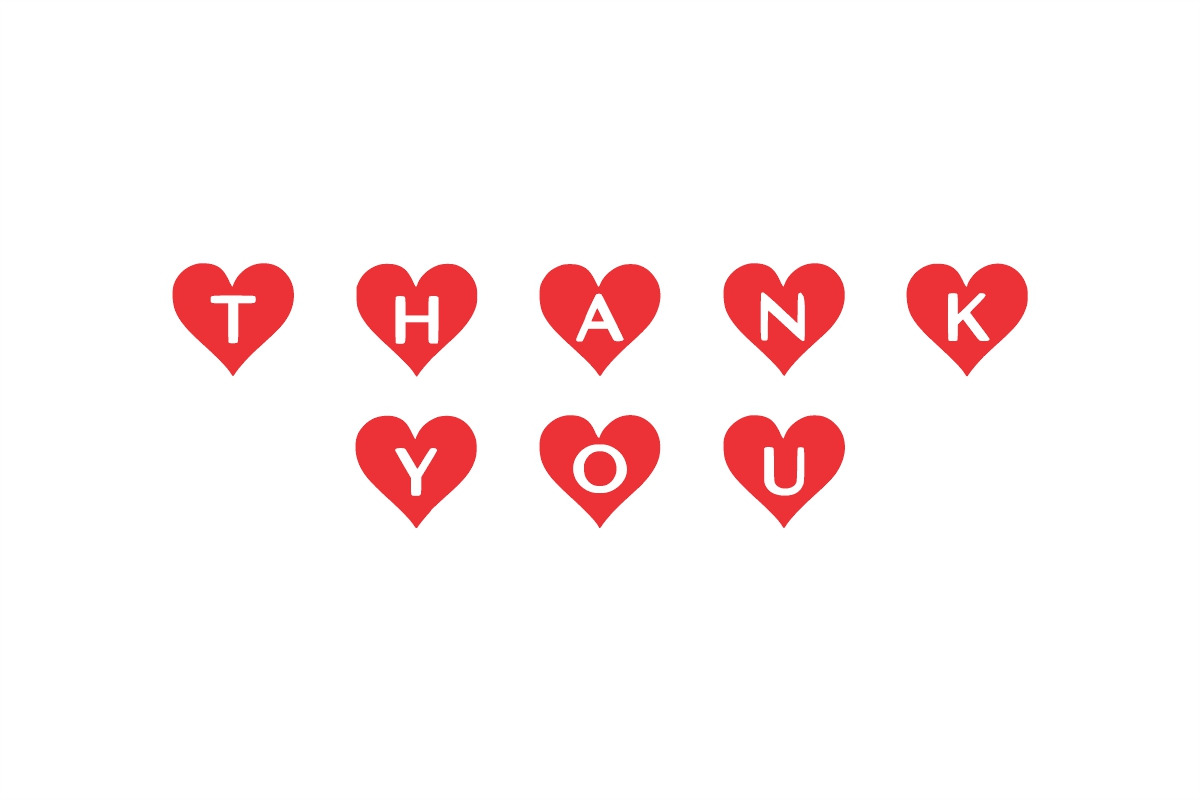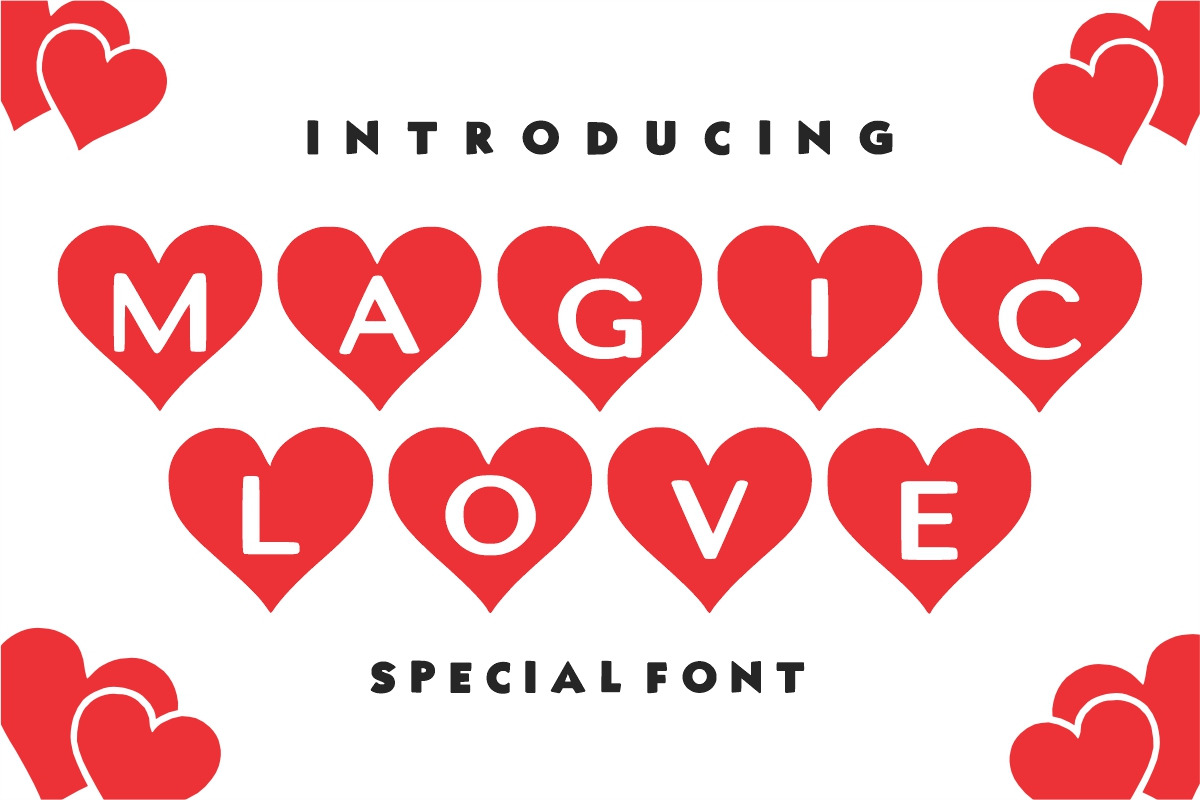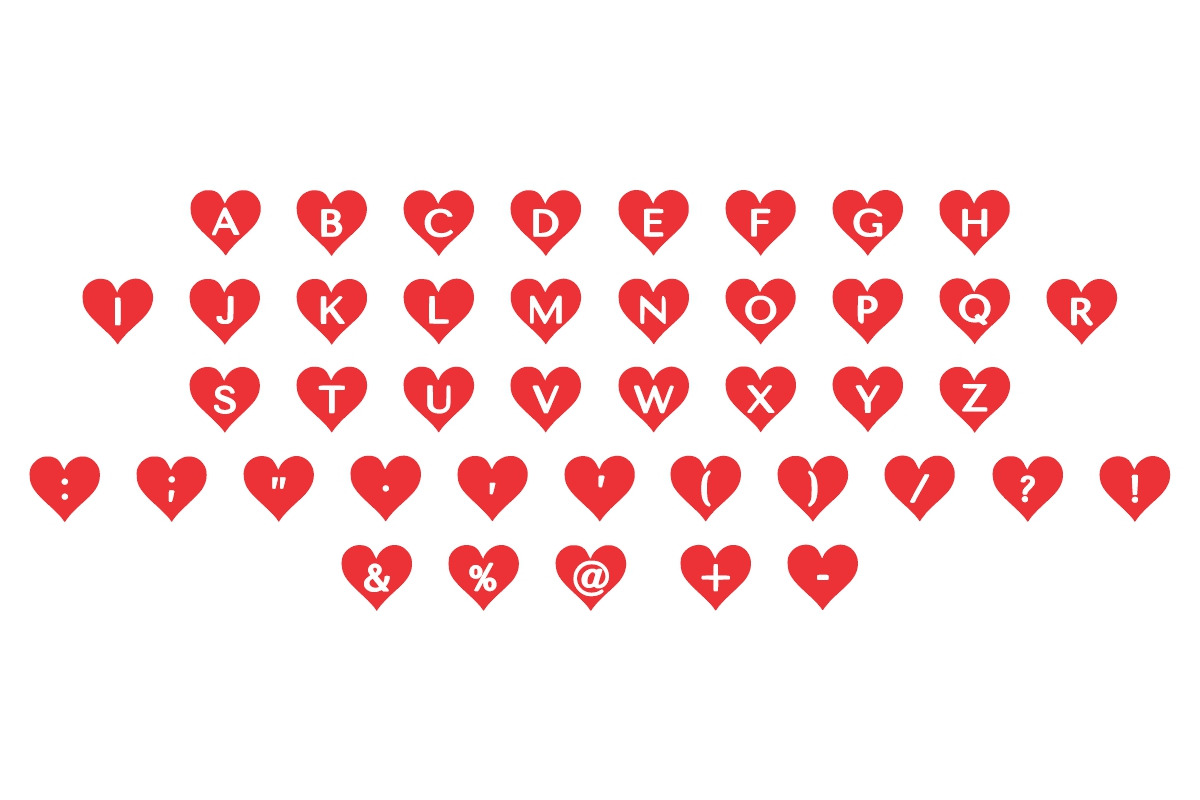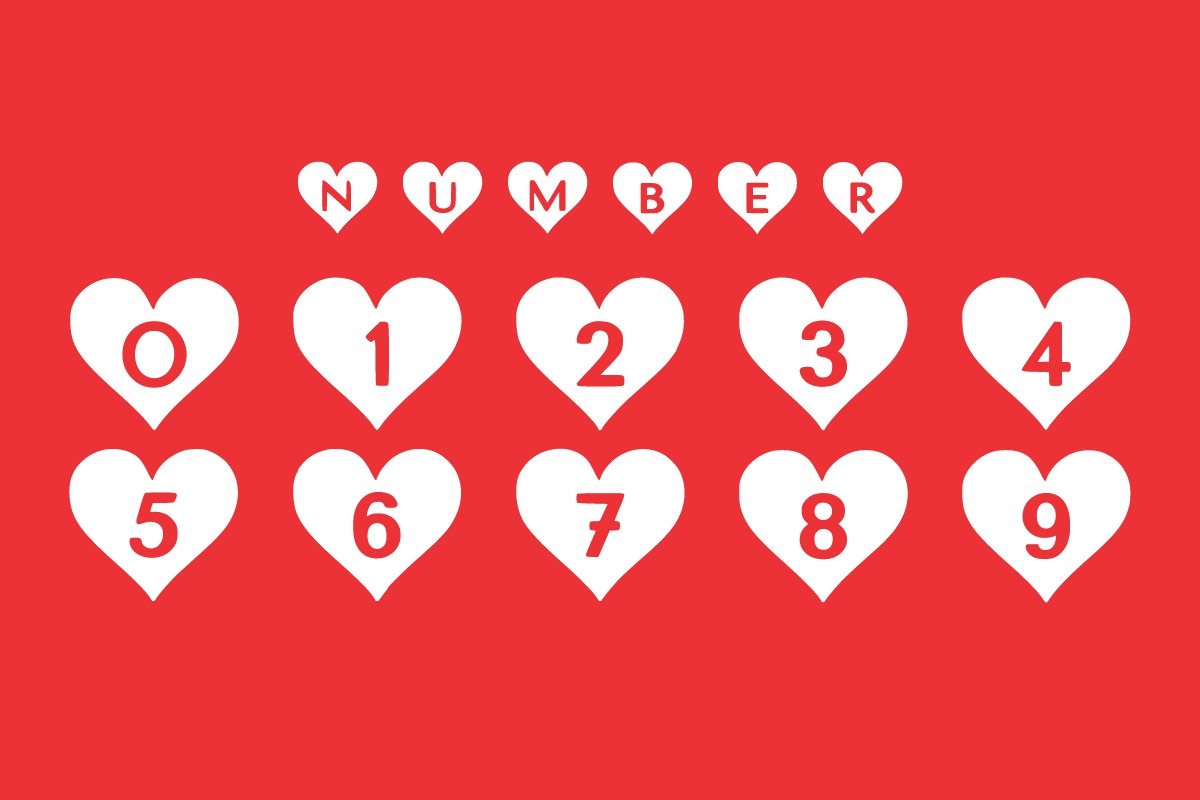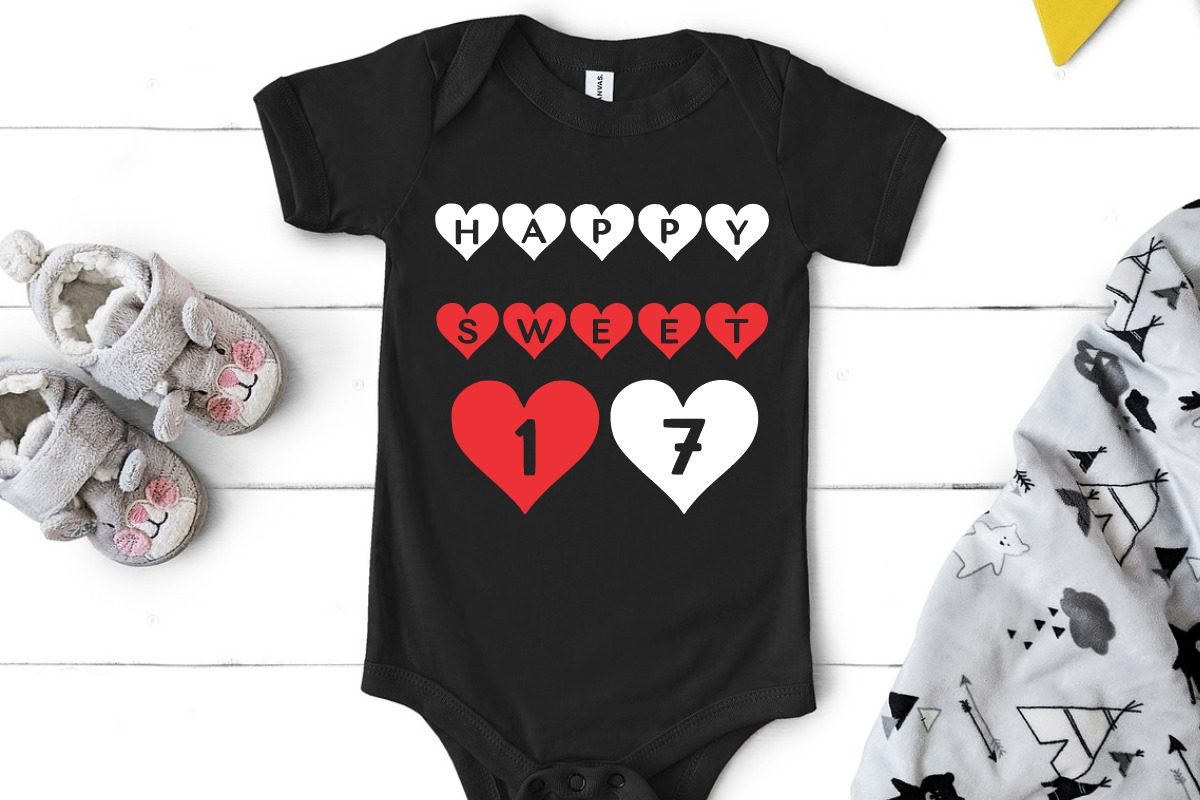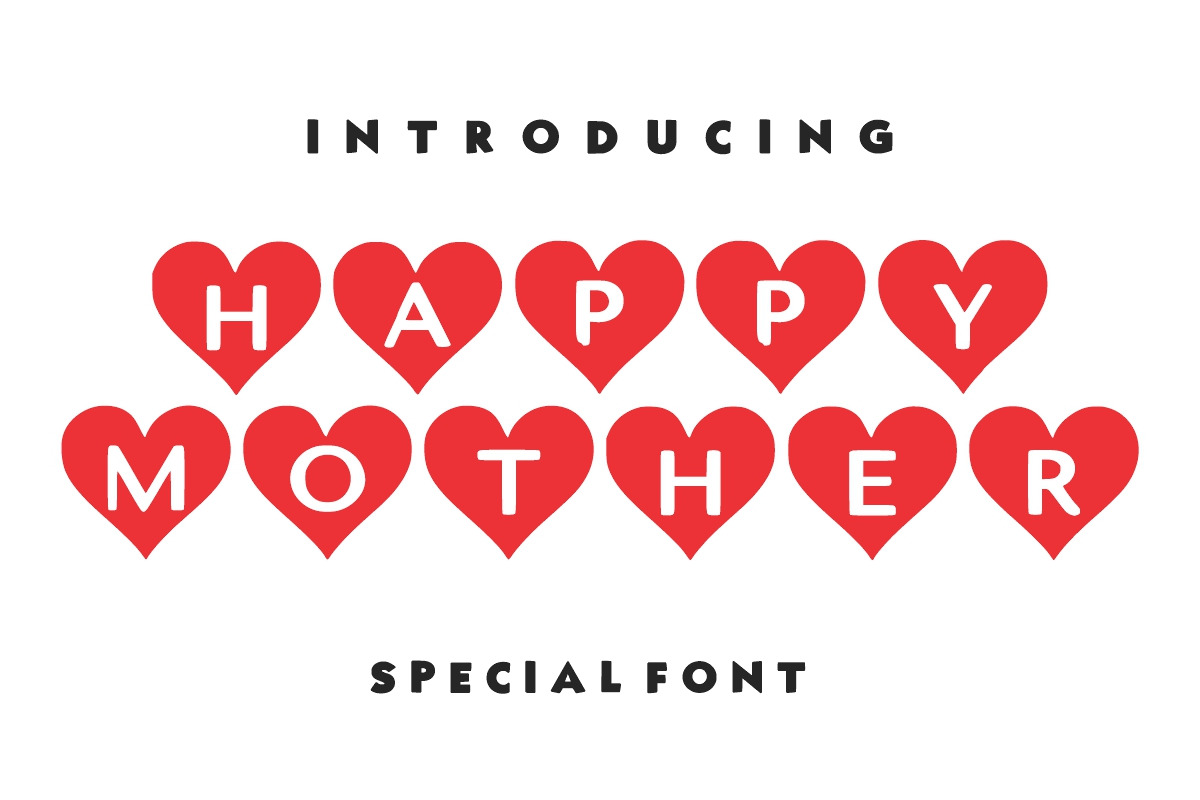
Magic Love Font
Magic Love was inspired by playful, love shape, bouncy romantic typography. This font is perfect for a design that makes it more attractive and chic.